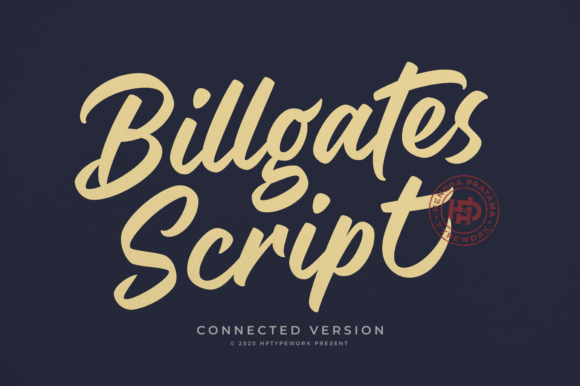
Welcome to the world of Billgates Script, a remarkable brushed font that will captivate your heart and ignite your creativity. This exceptional script font, meticulously crafted by hptypework, is an exquisite blend of vintage charm and contemporary elegance.
Billgates Script is not just a font; it's an experience that will transport you back to a bygone era of sophistication and grace. Its flowing lines and striking curves evoke a sense of nostalgia, while its unique and eye-catching design adds a touch of modernity that makes it perfect for a wide range of projects.
Step into a world where the written word takes on a new life, where every letter dances across the page with effortless grace. Billgates Script is the perfect font for those seeking to add a touch of timeless elegance to their creative endeavors. Its versatility knows no bounds, whether you're creating stunning logos, eye-catching posters, or heartfelt invitations.
With Billgates Script, you can effortlessly elevate your designs and leave a lasting impression on your audience. Its carefully crafted glyphs and swashes provide endless opportunities for customization, allowing you to tailor your creations to perfection.
Embark on a creative journey with Billgates Script and unleash your imagination. Its vintage charm and modern appeal will make your projects shine with a timeless beauty that will captivate and inspire. Experience the magic of Billgates Script today and elevate your designs to new heights.